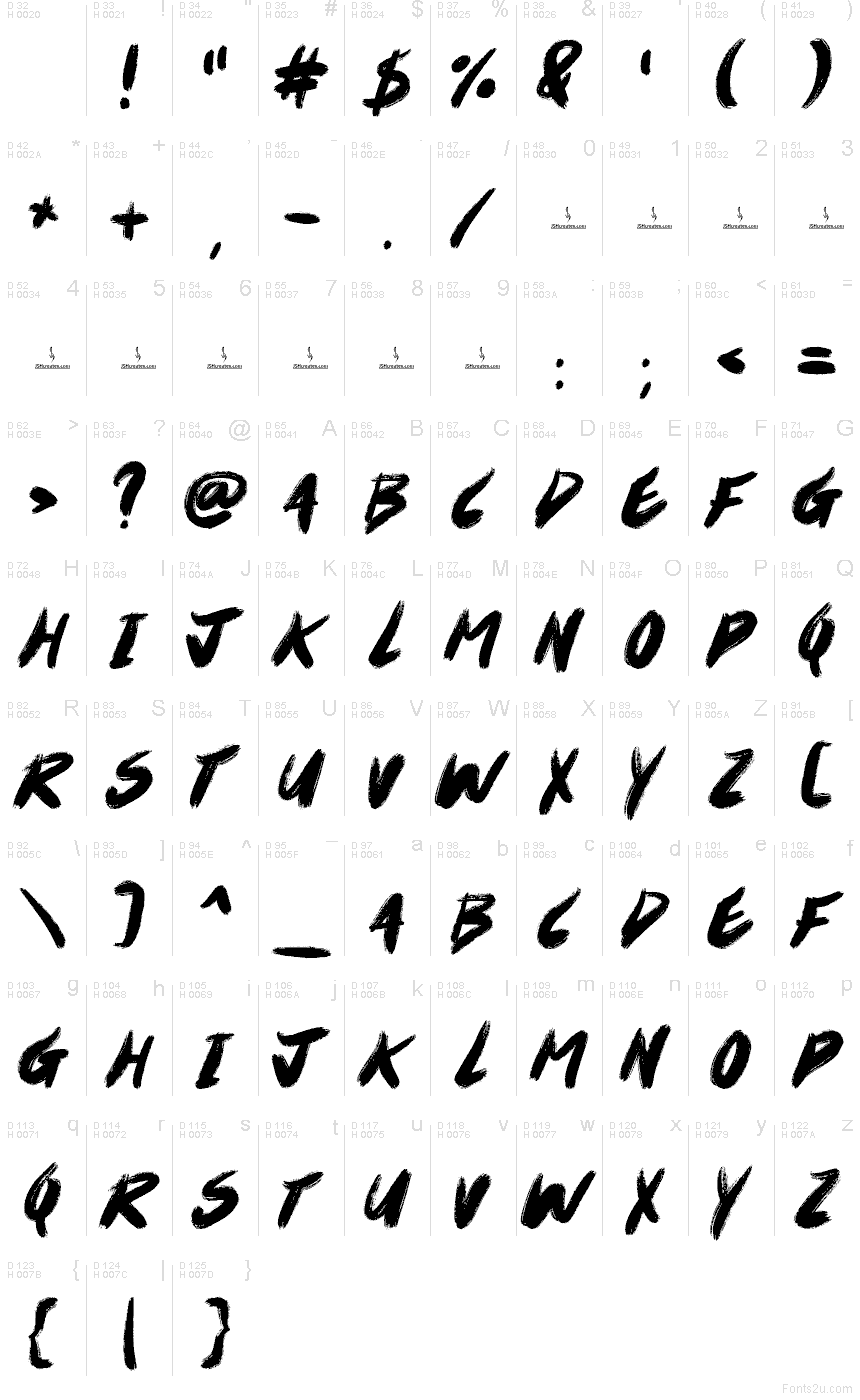
Maybe Brush font by JSH creates is a free brush script typeface with a gritty, dry-brushed texture that feels like it was slapped onto a wall with real paint. The letters lean forward with sharp, jagged strokes and inky splatters that catch the light like wet ink on rough paper. It’s bold, loud, and just messy enough to feel human, giving your headlines a raw, energetic edge that clean scripts can’t match.
Using Maybe Brush font, you can punch up posters, album covers, streetwear graphics, social media promos, sports branding, and bold packaging that needs attitude. The wide, slanted forms hold up incredibly well at large sizes, where every streak and bristle shows. This free font also pairs nicely with a simple geometric sans for body copy-let Maybe Brush shout while the sans keeps everything grounded.